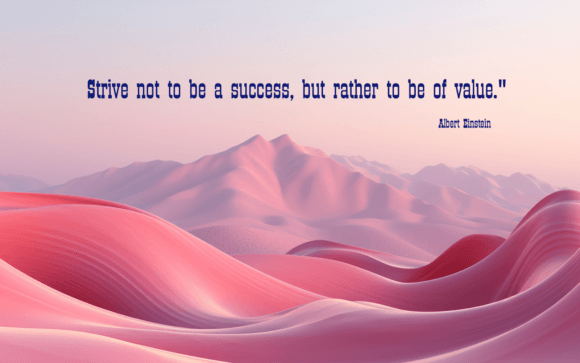
Unleash Your Creativity with Grand Strut Font
I’ll never forget the time I was working on a project for a client who needed a bold, eye-catching font to make their brand stand out. I had spent hours scrolling through font libraries, but nothing seemed quite right. That was until I stumbled upon Grand Strut font—a game-changer for any designer looking to make a statement. In this article, I’ll share my experience with Grand Strut font, its features, and how to make the most of it in your designs.
A Personal Review of Grand Strut Font
• ✨ Bold and Commanding Presence: Grand Strut font has a sharp, clean aesthetic that’s perfect for modern designs. Its commanding presence demands attention, making it ideal for headlines, branding materials, and posters.
• ✅ Ease of Use: The font is easy to read and works well in various design contexts, from digital media to print.
• 💡 Versatility: Grand Strut font can be used for a wide range of projects, from elegant business cards to bold advertising posters.
While Grand Strut font is incredibly useful, there are a few things to keep in mind:
• 🤔 Legibility at Small Sizes: Like many bold fonts, Grand Strut can become less legible at very small sizes. It’s best used for headlines or larger text.
• ⚠️ Overuse: Due to its bold nature, it’s easy to overuse Grand Strut font. Balance it with simpler fonts to maintain visual hierarchy.
The Backstory of Grand Strut Font
Grand Strut font was designed with the goal of creating a bold, yet elegant typeface that could make a statement in any design. Inspired by modern architectural lines and classic typography, Grand Strut combines the best of both worlds to create a unique and memorable font. Its designer aimed to craft a typeface that would not only be visually striking but also versatile enough to be used across various mediums.
Q: What makes Grand Strut font unique?
A: Grand Strut font is unique due to its bold, commanding presence and clean, modern aesthetic. Its sharp lines make it perfect for headlines and attention-grabbing text.
Q: Is Grand Strut font easy to read?
A: Grand Strut font is designed to be bold and attention-grabbing. While it’s easy to read at larger sizes, it may become less legible at very small sizes.
Q: Can I use Grand Strut font for both digital and print media?
A: Absolutely! Grand Strut font works well in both digital and print media, making it a versatile choice for a wide range of design projects.